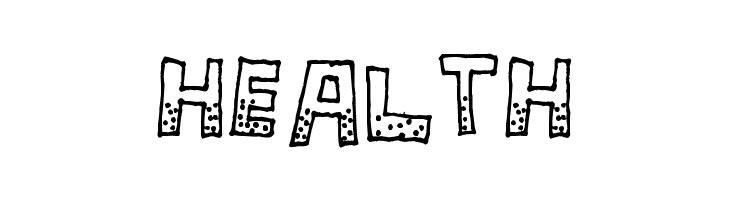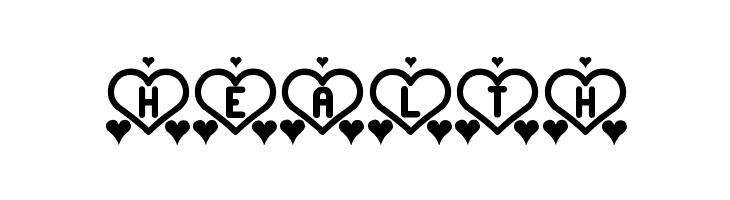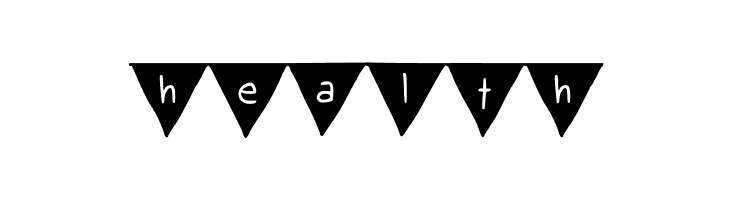
A playful, hand-drawn font with a dotted texture and quirky style.
A playful font with characters inside triangular flags, ideal for festive designs.
A playful, decorative font with bold letters inside ornament-like circles topped with bows.
A playful 3D block font with characters inside outlined cubes.
A playful font with characters inside balloon shapes, perfect for festive designs.
A bold, decorative font with wavy line patterns inside each character.
A playful Halloween-themed font with characters inside pumpkin shapes.
A playful, decorative font with characters inside triangular banners.
A playful font with characters inside candy corn shapes, ideal for festive designs.